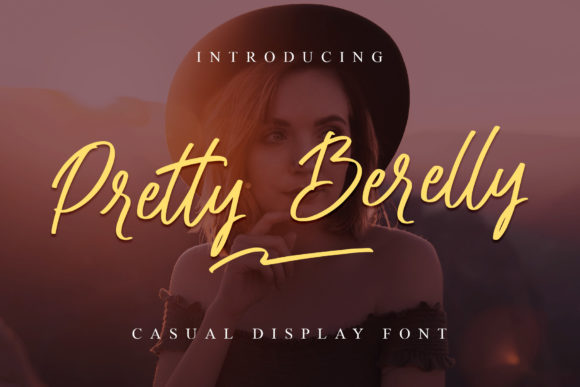
Feast your eyes on Pretty Berelly, a script font that exudes elegance and flows with a modern touch, gracefully adorning your designs. Step into a world of captivating typography, where letters dance across the page with a lively rhythm, mirroring the harmonious blend of tradition and innovation.
Pretty Berelly's essence lies in its versatility, adapting effortlessly to a symphony of creative endeavors. Let it orchestrate the visual identity of your brand, allowing your logo to speak volumes with its refined strokes. Unleash its potential in crafting bespoke invitations and stationery, transforming special moments into timeless keepsakes.
Visualize Pretty Berelly gracing wedding designs, adding a touch of enchantment to the most romantic day of your life. Its fluid lines and graceful curves will elevate your social media posts, captivating your audience with an air of sophistication.
Dive into the world of academia, where Pretty Berelly flourishes on posters and presentations, conveying complex ideas with an artistic flair. Its legible nature ensures clarity, while its aesthetic charm captivates the attention of your audience, leaving a lasting impression.
With Pretty Berelly as your creative companion, unlock a treasure trove of possibilities. Let your imagination soar as you create designs that resonate with grace and eloquence, leaving an indelible mark on the hearts of your readers and viewers.